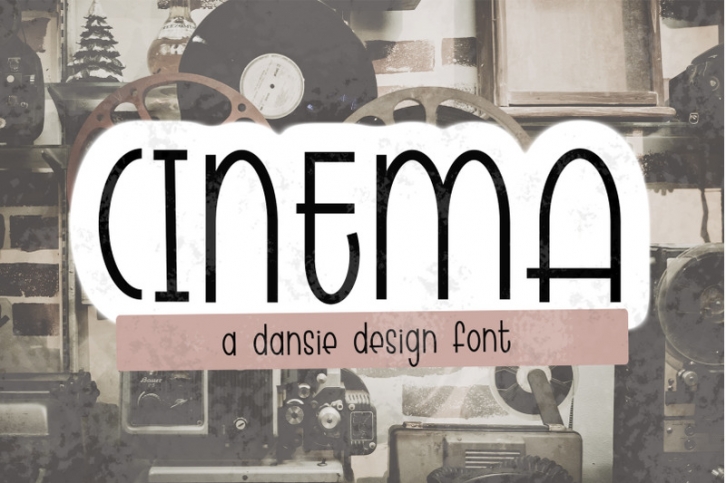
A fun and unique hand designed font that can be used for any occasion! CINEMA includes a regular version and an outlined version!
This font can be used for all kinds of things such as Cricut projects, digital designs, social media, invitations, shirts, mugs, wood signs, and so much more!